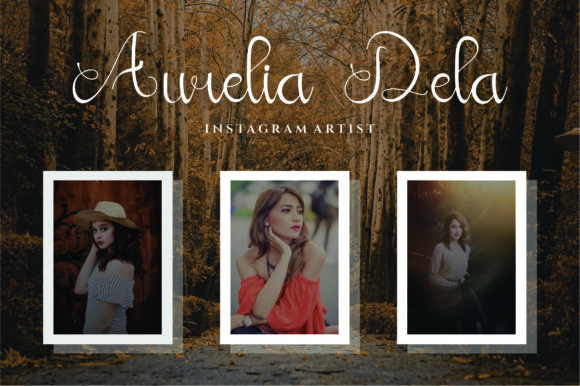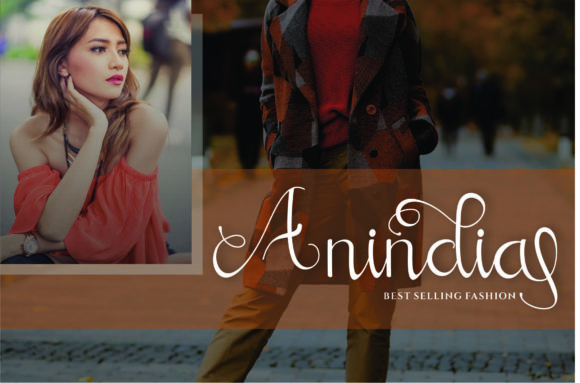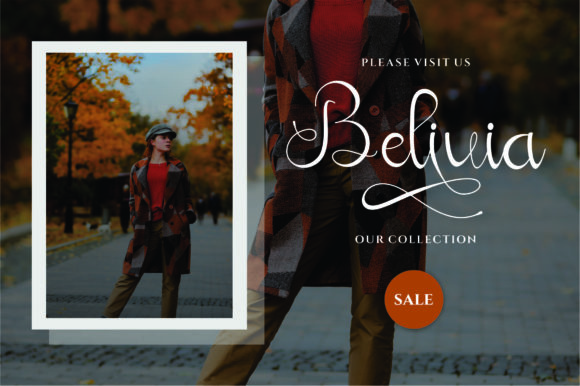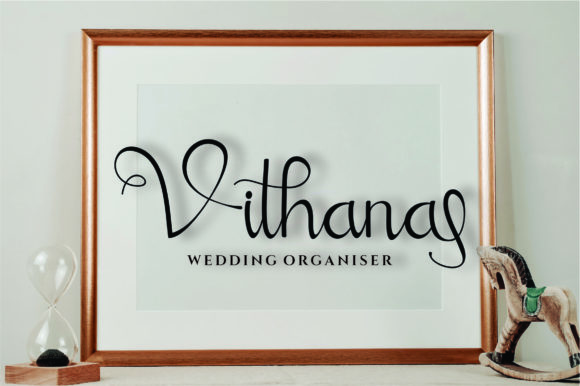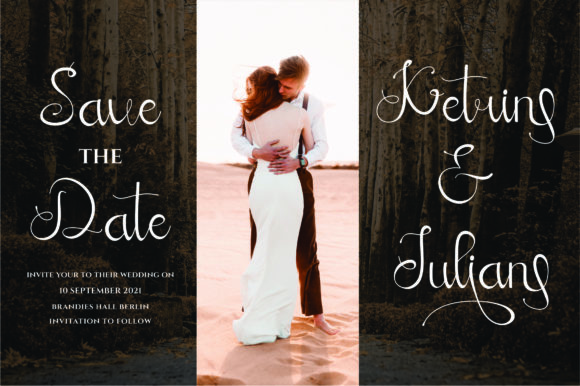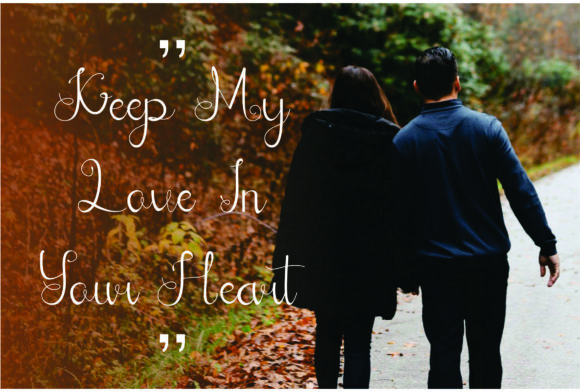
Discover the Elegance of Berlin Font: A Lovely and Delicate Script Font
Are you looking for a font that exudes elegance and class to elevate your designs? Look no further than Berlin Font, a beautiful and refreshing script font that is sure to impress. Crafted with precision and attention to detail, Berlin Font is the perfect choice for designers and crafters who want to add a touch of sophistication to their work.
The Characteristics of Berlin Font
Berlin Font is a lovely and delicate script font that boasts a range of characteristics that make it stand out from the crowd. Its elegant and refined lines make it perfect for use in a variety of design projects, from wedding invitations and stationery to branding and advertising materials. The font’s classic and timeless look ensures that it will never go out of style, making it a valuable addition to any designer’s toolkit.
One of the key features of Berlin Font is its PUA (Private Use Area) encoding. This means that users can access all of the font’s glyphs and swashes with ease, allowing for greater flexibility and creativity in design. With PUA encoding, designers can easily access and use the font’s various alternates, ligatures, and ornaments to create unique and eye-catching designs.
Uses for Berlin Font
Berlin Font is a versatile font that can be used in a wide range of design projects. Some of the most popular uses for the font include:
- Wedding invitations and stationery: Berlin Font’s elegant and refined lines make it perfect for use in wedding designs, such as invitations, save-the-dates, and thank-you cards.
- Branding and advertising: The font’s classic and timeless look makes it a great choice for use in branding and advertising materials, such as logos, business cards, and brochures.
- Digital design: Berlin Font can be used in digital designs, such as social media graphics, blog headers, and website designs, to add a touch of elegance and sophistication.
- Crafting: The font’s delicate and refined lines make it perfect for use in crafting projects, such as card making, scrapbooking, and journaling.
Why Choose Berlin Font?
So why choose Berlin Font over other script fonts on the market? Here are just a few reasons why designers and crafters love Berlin Font:
- Elegant and refined lines: Berlin Font’s elegant and refined lines make it perfect for use in designs where a touch of sophistication is needed.
- PUA encoding: The font’s PUA encoding makes it easy to access and use all of the font’s glyphs and swashes.
- Versatile: Berlin Font can be used in a wide range of design projects, from wedding invitations to branding materials.
- Timeless look: The font’s classic and timeless look ensures that it will never go out of style.
| Font Name | Berlin Font |
| Author | Ermedia Studio |
In conclusion, Berlin Font is a beautiful and elegant script font that is perfect for designers and crafters who want to add a touch of sophistication to their work. With its refined lines, PUA encoding, and versatile uses, Berlin Font is a valuable addition to any designer’s toolkit. Whether you’re working on a wedding invitation, branding materials, or a digital design project, Berlin Font is sure to impress.